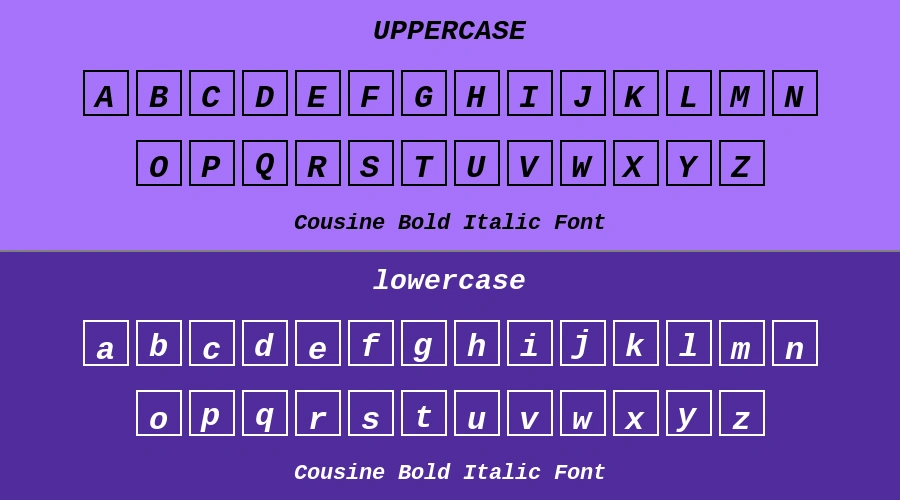
About Cousine Bold Italic Font
Cousine Bold Italic Font stands out for its distinctive combination of elegant spacing and technical precision. Ideal for medical writing, it provides the originality and creative excellence that professional projects demand. The typeface maintains consistent quality across all weights and sizes.
Key features include refined calligraphic influence and practical word-end alternates, enhancing typographic expression. In identification tags applications, Cousine Bold Italic Font demonstrates exceptional brand recognition. The loop structure and cultural relevance contribute to its distinctive character and professional appeal.